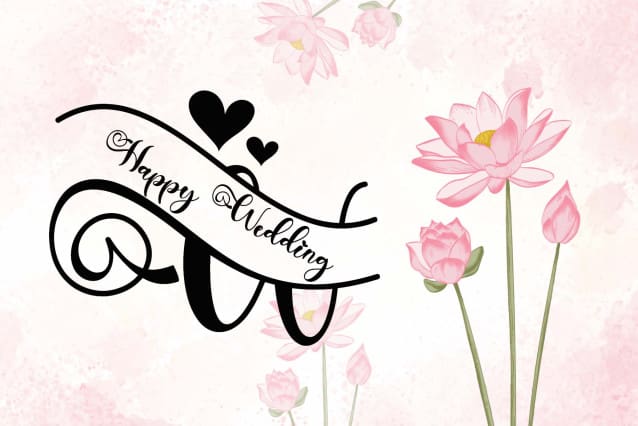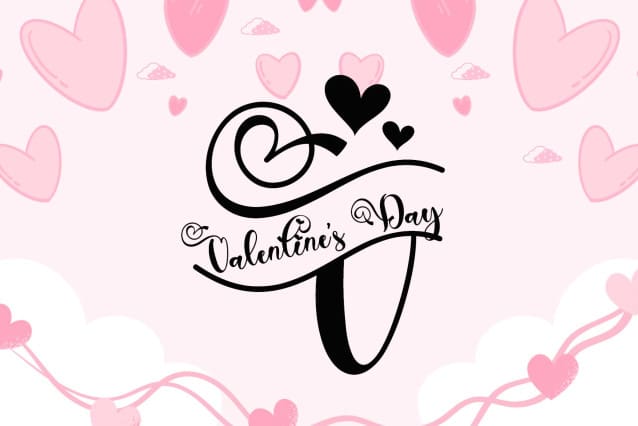
Beautiful Lovely Monogram Font
Beautiful Lovely Monogram Font is a beautiful monogram font. It comes with capital letters, lowercase letters, numbers, punctuation, and multilingual support. It is perfect for wedding, birthday, valentine, thanksgiving, invitation, photography, holiday, print, banner, poster, and more.